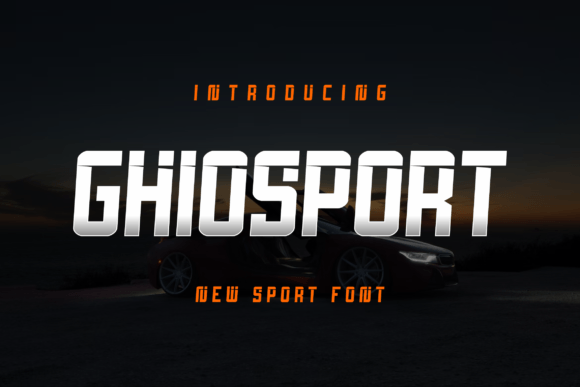
Get Ready to Unleash Your Creativity with Ghiosport Font
Do you ever get that feeling when a design project just sparks an idea and takes off in a thrilling direction? For me, it’s that moment when the perfect font comes along and elevates the entire project. It’s like the missing puzzle piece has finally fallen into place. And, trust me, that’s exactly what happens when you add the Ghiosport Font to your project.
Ghiosport Font is a cool and sporty display font designed to give your projects an extra kick. Whether you’re working on a sports-related design, a bold marketing campaign, or simply want to add some edge to your branding, Ghiosport Font is the perfect addition. Its versatility makes it valuable for designers who want to create eye-catching and memorable designs.
Ghiosport Font Key Features
- Unique Characteristics: Ghiosport Font features a unique blend of modern and sporty elements, making it perfect for designs related to fitness, sports, and wellness.
Ghiosport Font Review
Overall, I’d say Ghiosport Font is an interesting and bold choice for designers looking to add some sporty vibes to their projects. Here are the things that work well:
- ✨ The font’s strong, athletic feel is perfect for sports-themed designs, logos, and graphics.
- ✨ The font family is quite versatile, with multiple weights and styles available to suit different design needs.
- ✨ Ghiosport Font is also highly customizable, allowing designers to tweak the font’s appearance to match their project’s tone and style.
- ⚠️ The font may not be the best choice for body text or long-form content, as it can be difficult to read in smaller sizes.
- ⚠️ Ghiosport Font may also be too loud or overpowering for more subtle or minimalist designs.
Overall, I’d give Ghiosport Font 3.5 out of 5 stars. It’s a great choice for designers who want to add a bold, sporty feel to their projects, but may not be the best fit for every design scenario.
Tips for Getting the Most Out of Ghiosport Font
Use Ghiosport Font for titles, headings, and emphasis in your designs to create a bold and eye-catching effect. Experiment with different font sizes and colors to create a unique and personalized look. Use Ghiosport Font in conjunction with other fonts to create a visually appealing contrast.
Ghiosport Font is commonly used for sports and fitness branding, as well as for designs that require a bold and energetic look. It’s also a popular choice for fashion and lifestyle designs that need to convey a sense of excitement and style.
Alternatives to Ghiosport Font
Dancing Script Font is a lively and expressive script font that’s perfect for adding a sense of energy and movement to your designs. It’s ideal for use in social media graphics, advertisements, and other projects where you want to convey a sense of excitement and dynamism. Dancing Script Font has a more fluid and dynamic feel compared to Ghiosport Font, which is more static and informal.
Q: Is Ghiosport optimized for digital use?
Yes, Ghiosport is optimized for digital use, with careful attention paid to hinting and kerning to ensure smooth rendering on various screens and devices. This makes it an excellent choice for digital design projects, including websites, mobile apps, and digital publications.